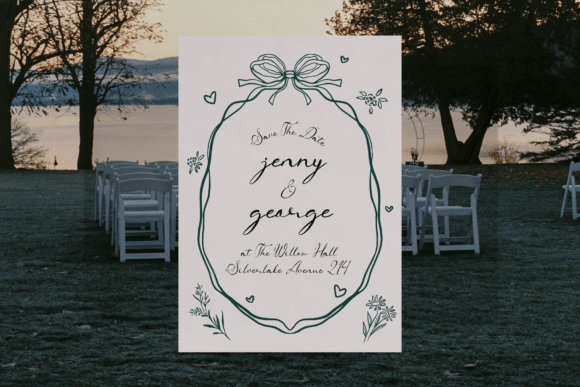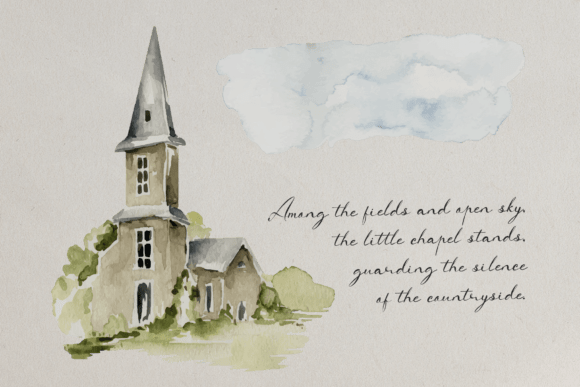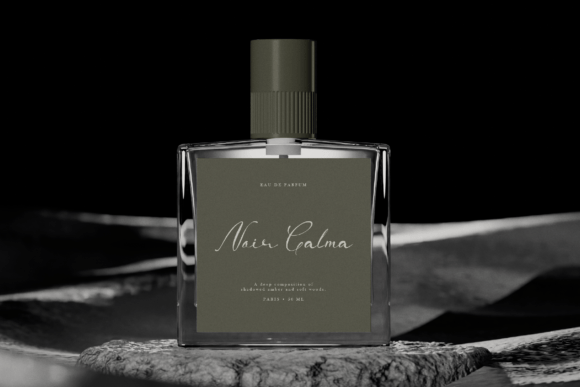
Introduction to Sentaphira Font
As designers, we’ve all been there – staring at a blank canvas, trying to capture the essence of a moment that requires a unique, timeless touch. For those special occasions, a high-quality design resource can make all the difference. That’s where the Sentaphira Font comes in – a beautifully crafted, handwritten script that exudes sophistication and elegance.
With its fluid, expressive loops and delicate fine-liner weight, Sentaphira Font is perfect for adding a personal touch to your creative projects. Whether you’re working on a wedding invitation, a luxury brand’s marketing materials, or a high-end publication, this font is sure to impress. Its natural flow mimics real handwriting, offering a seamless blend of classic calligraphy and modern minimalism.
Key Features of Sentaphira Font
- High-quality, unique design ideal for creative projects and artistic expressions
- Designed to be versatile and adaptable for a wide range of design applications
- Includes a comprehensive set of characters, including uppercase and lowercase letters, numbers, and punctuation
- Perfect for designers and artists seeking a unique, high-quality design resource
Honest Review: Sentaphira Font
As a designer, I’m always on the lookout for unique and high-quality design resources to elevate my creative projects. Recently, I had the chance to work with the Sentaphira Font, and I must say it’s a real gem. ✨
Here are some of the features that I appreciate about the Sentaphira Font:
Overall, I’m really impressed with the Sentaphira Font, and I would highly recommend it to designers looking for a high-quality, unique font for their creative projects. It’s definitely a valuable addition to any design resource collection.
The Sentaphira Font is ideal for:
- Website design
Tips for Getting the Most Out of Sentaphira Font
To get the most out of the Sentaphira Font, use it with a transparent background to create a clean and modern design. Experiment with different font sizes and colors to find the perfect combination for your project.
Alternatives to Sentaphira Font
The Great Vibes Font is a high-quality, elegant script font perfect for creative projects requiring a touch of sophistication. It’s ideal for use in titles, headings, or as a main font for a design project. Great Vibes Font can be used for both personal and commercial purposes and is available for free download. When to use: wedding invitations, luxury branding, or high-end design projects. It compares to Sentaphira Font in its elegant and sophisticated feel, but Great Vibes Font has a more refined and polished look.
Alex Brush Font is a beautiful, handwritten font that’s ideal for creative projects that require a personal touch. It’s perfect for use in titles, headings, or as a main font for a design project. Alex Brush Font is available for free download and is a great design resource for designers looking for a high-quality, handwritten font. When to use: blog posts, social media graphics, or personal branding. It compares to Sentaphira Font in its elegant and handwritten feel, but Alex Brush Font has a more casual and relaxed look.
Carolyna Pro Font is a high-quality, modern script font that’s perfect for creative projects requiring a touch of elegance and sophistication. It’s ideal for use in titles, headings, or as a main font for a design project. Carolyna Pro Font is available for free download and is a great design resource for designers looking for a high-quality, modern font. When to use: luxury branding, high-end design projects, or creative business cards. It compares to Sentaphira Font in its elegant and sophisticated feel, but Carolyna Pro Font has a more modern and sleek look.
Can I customize the Sentaphira Font to fit my design needs?
Yes, the Sentaphira Font is highly customizable, with a wide range of font sizes, styles, and effects available. You can also use font editing software to customize the font’s appearance, including modifying the spacing, kerning, and line height.